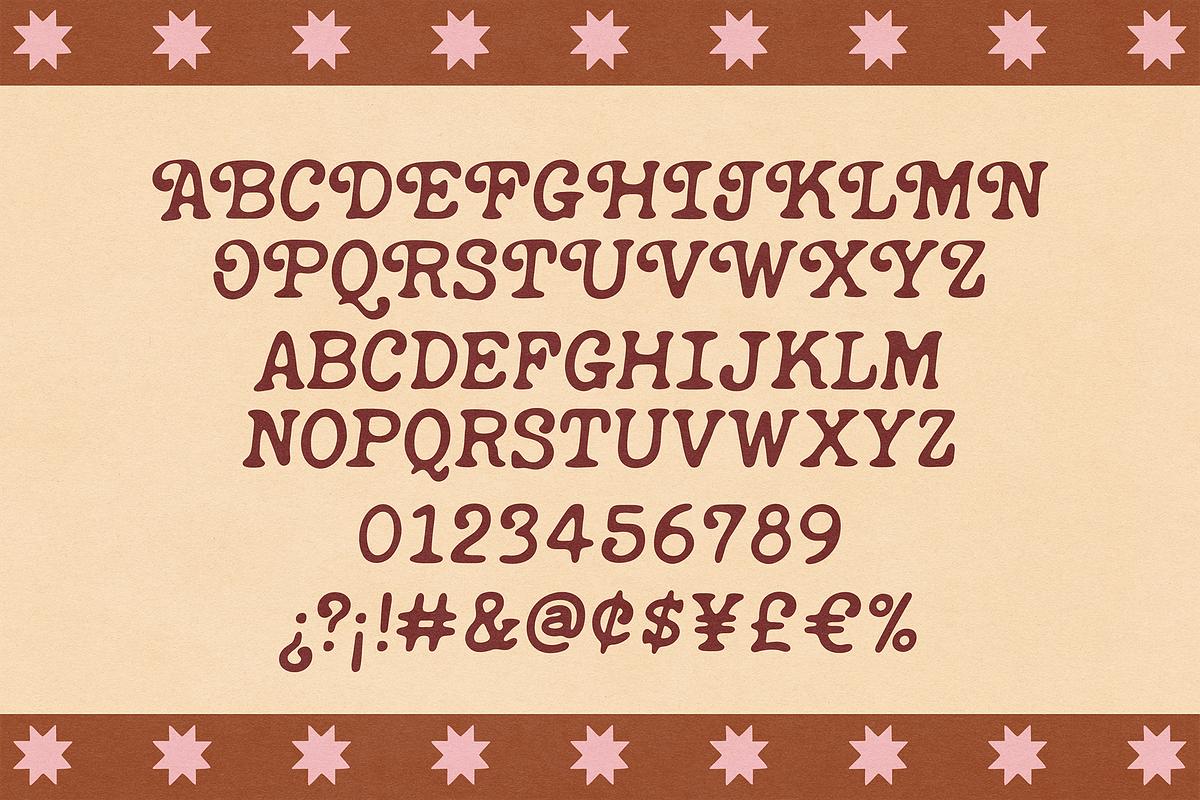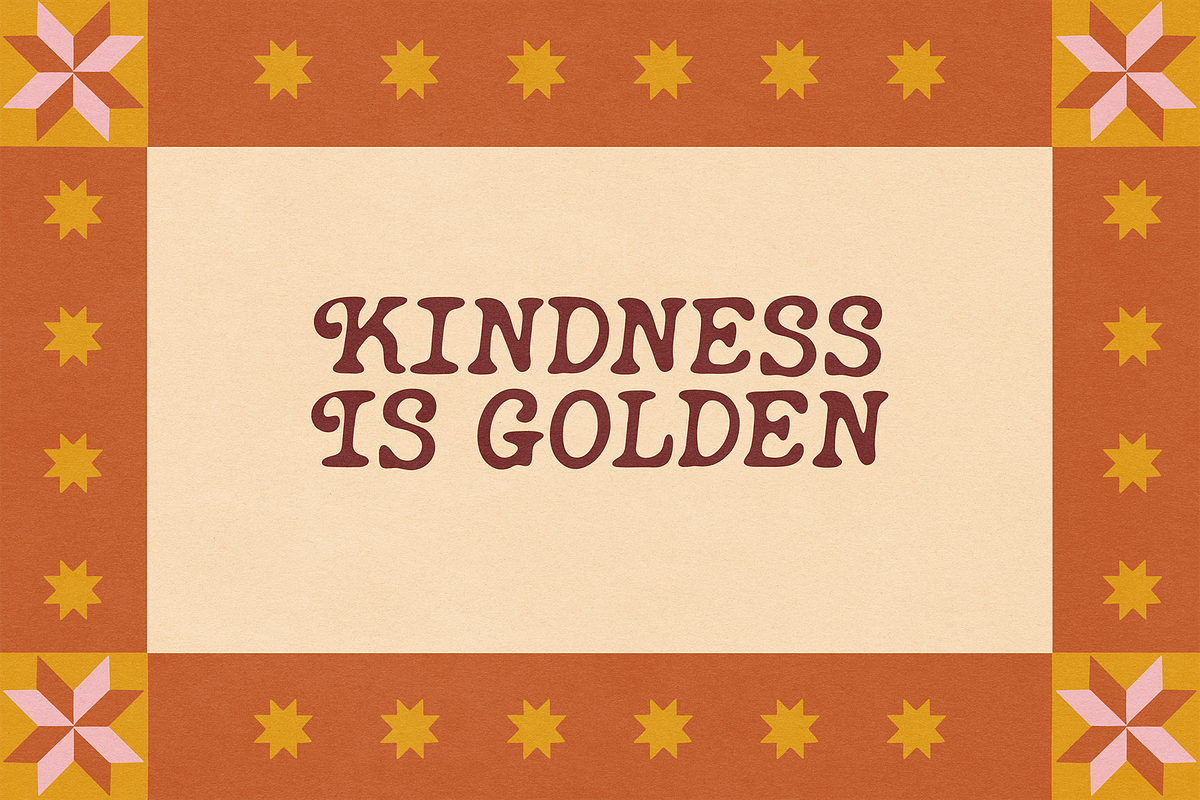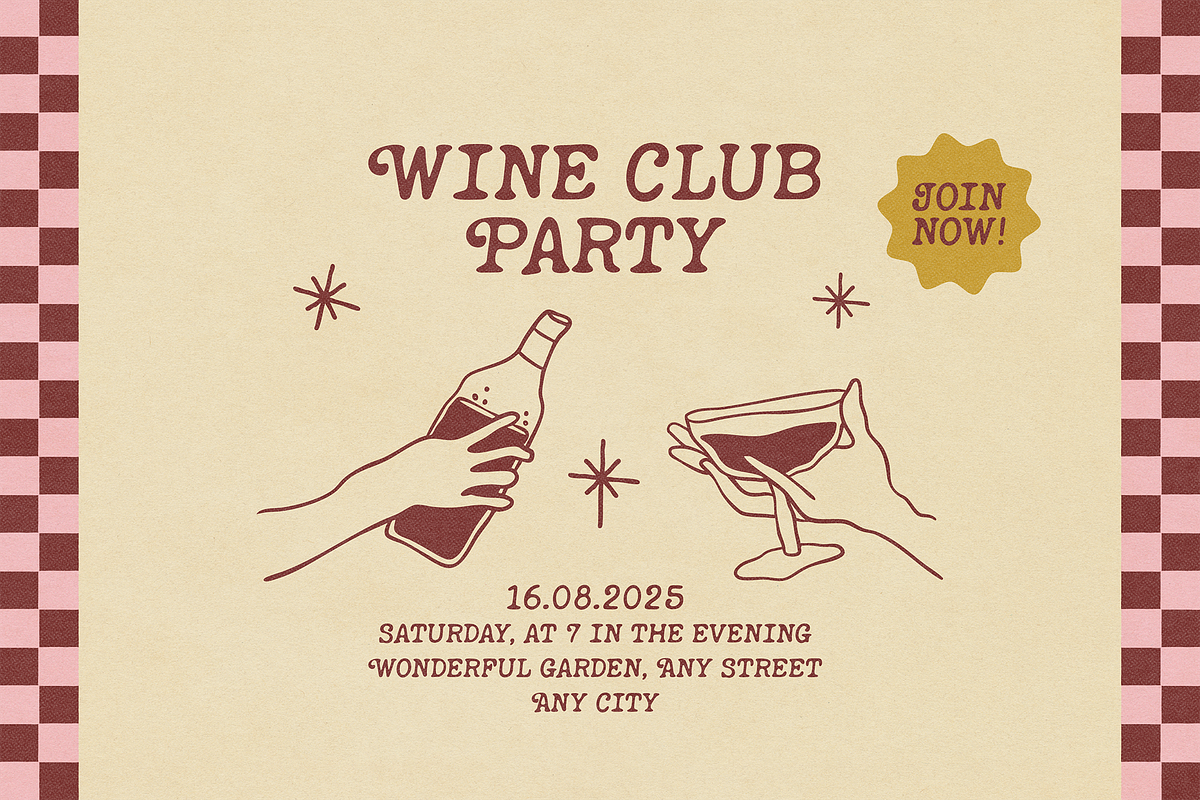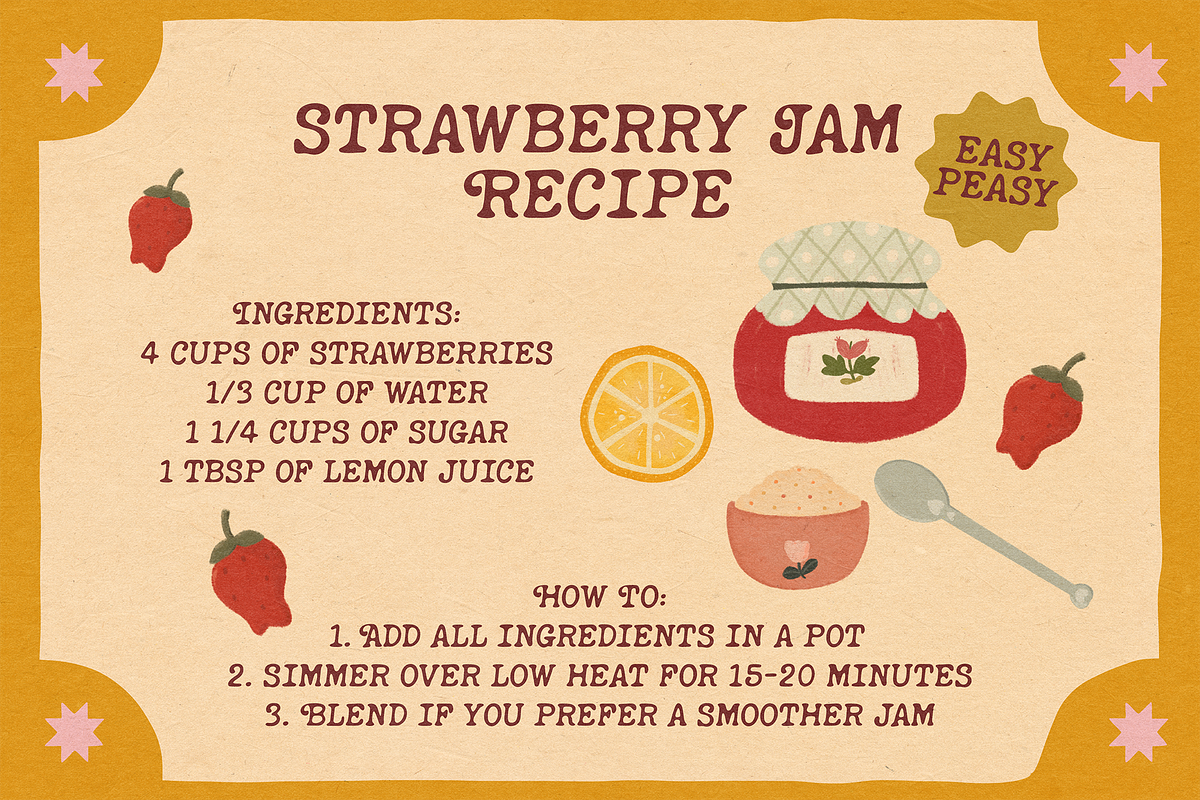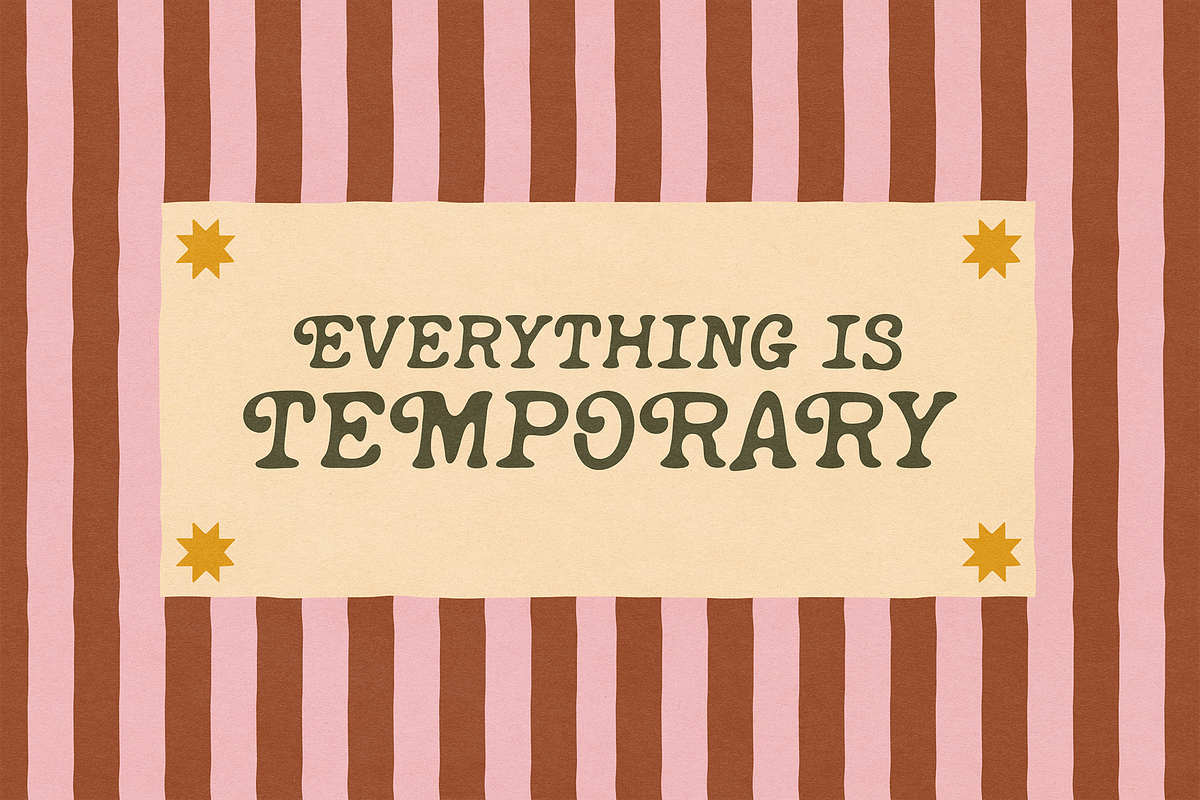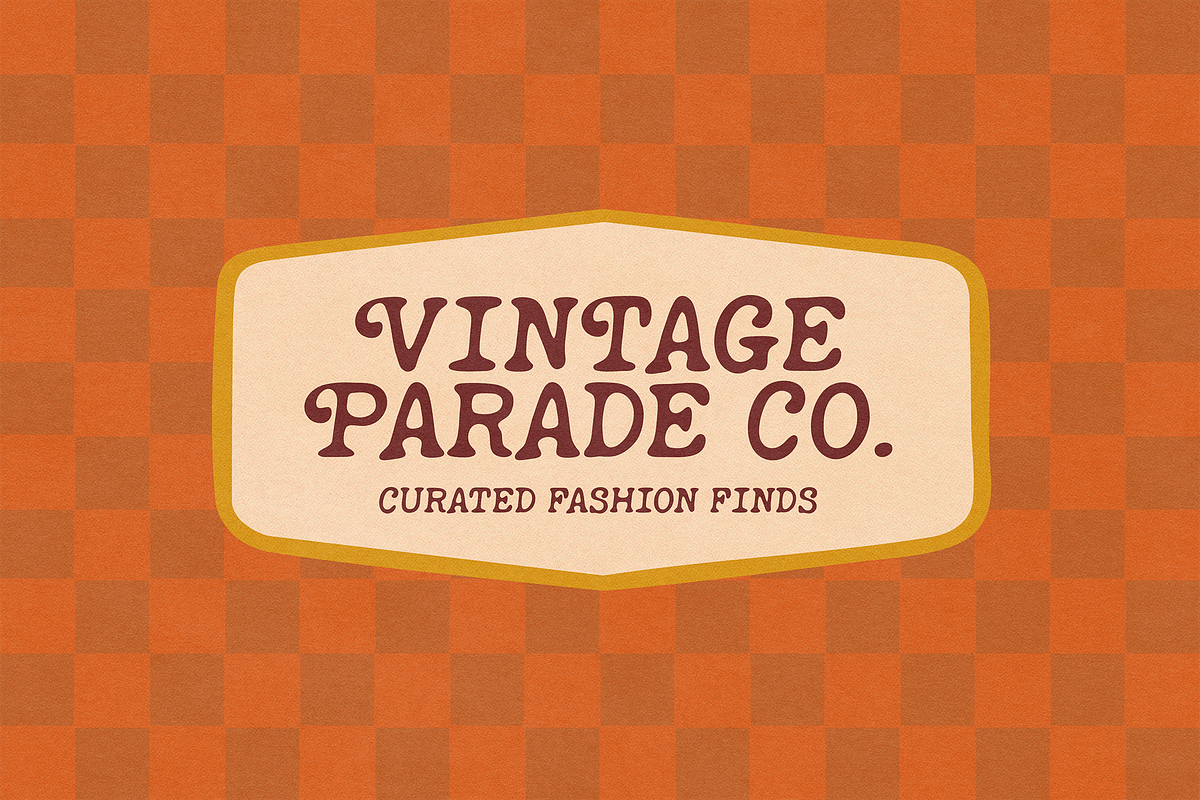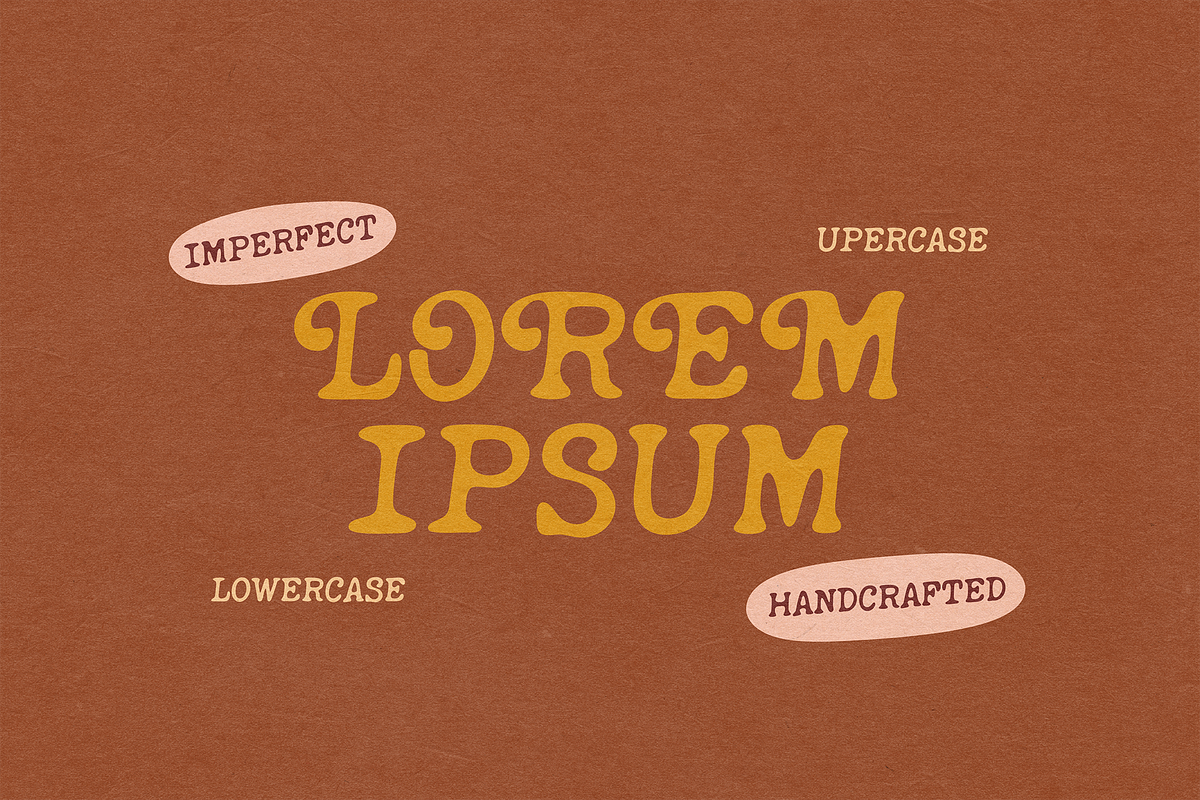
COZY CORE | SWEET COZY FONT
Meet COZY CORE, a cozy hand-made font full of charm and warmth. Its imperfect strokes and magical, cozy style make it the perfect choice for titles, quotes, greeting cards, branding projects, and so much more.
Even though COZY CORE is an all-uppercase font, each letter is designed with a unique softness that makes them shine on their own. Use capitals at the start of each word for a clean, elegant look, or mix uppercase and lowercase for a playful, eye-catching effect.
Inspired by the beauty of autumn and its warm, heart-touching colors, this versatile typeface will *bring personality and coziness to every project from seasonal designs to year-round creations.